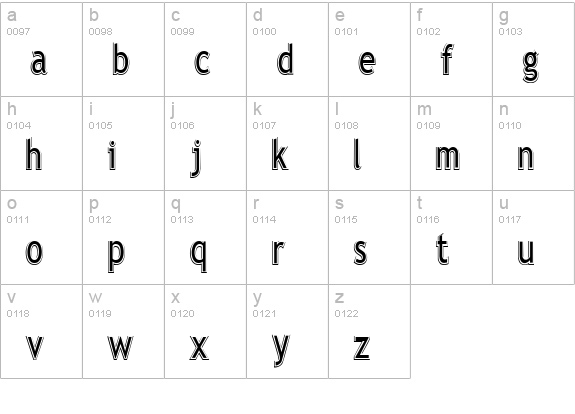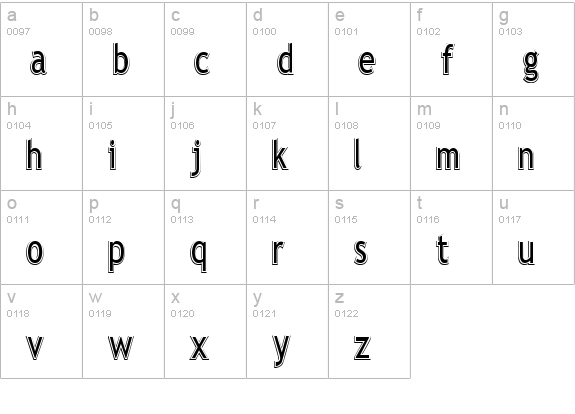
Elegante Regular is the standard, neutral variant in the Elegante typeface family \xE2\x80\x94 well suited to general body text, paragraphs, and standard typographic work.
Elegante Regular is a beautifully crafted font that exudes elegance and sophistication. With its clean lines and timeless design, this font is perfect for adding a touch of class to any project. Featuring a balanced combination of sharp edges and graceful curves, Elegante Regular is incredibly versatile and can be used for a variety of purposes, including branding, logos, invitations, and more. Its legibility and clarity make it ideal for both print and digital applications, ensuring that your message is conveyed with utmost clarity. But what sets Elegante Regular apart is not just its stunning aesthetics, but also its accessibility. This font is available for free download at FontsMarket.com, making it easily accessible to designers and creatives around the world. Now, you can bring a touch of elegance to your projects without breaking the bank. So whether you're working on a wedding invitation, a luxurious branding project, or simply want to add a touch of sophistication to your designs, Elegante Regular is the perfect choice. Download it for free at FontsMarket.com and let your creativity shine with this timeless font.